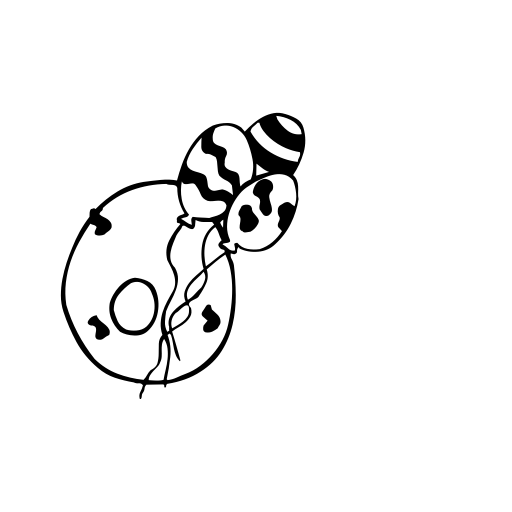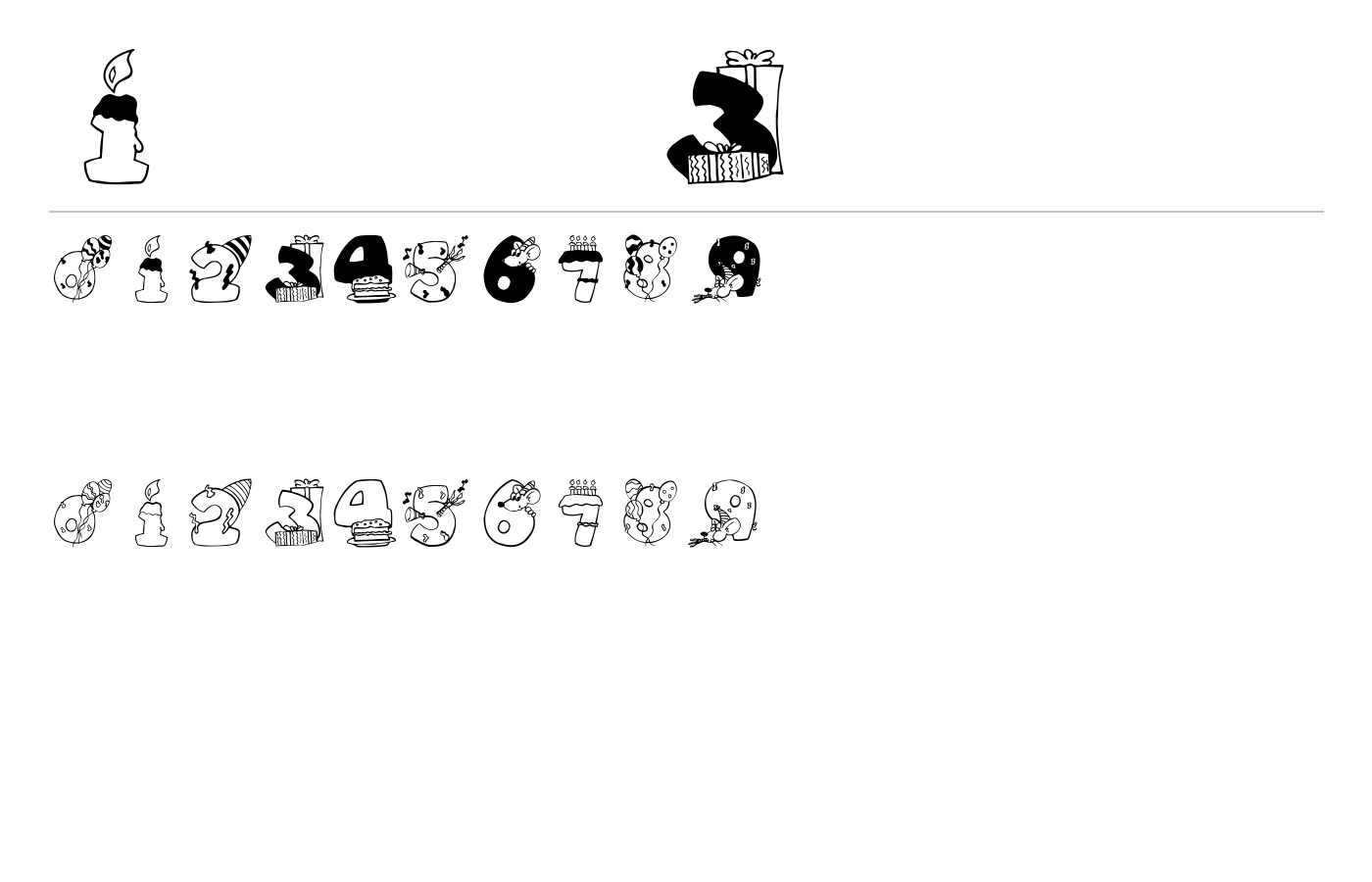
BirthdayDigits is a playful and decorative font featuring birthday-themed illustrations integrated into each number, such as candles, balloons, and cakes. Its whimsical style makes it perfect for festive invitations, party decorations, or children's event materials, adding a fun and celebratory vibe to any design. This font works best in headline or display settings where its unique details can shine and capture attention.
BirthdayDigits Font
About BirthdayDigits Font